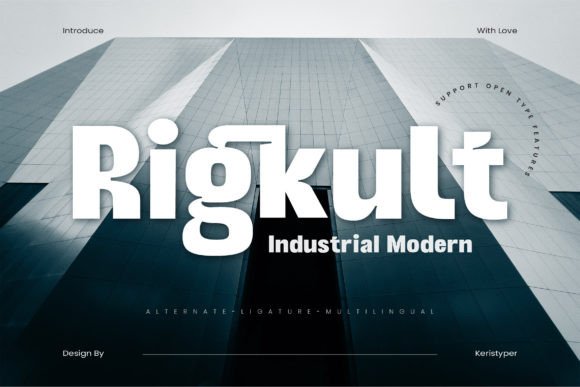
In a digital landscape defined by innovation and disruption, Rigkult font emerges as a beacon of modernity, a font crafted to resonate with the pulse of tech companies. Its sans serif structure radiates a sleek minimalism, a perfect harmony of sharp angles and smooth curves that evoke a sense of progress and evolution. Designed by the visionary Keristyper, Rigkult is not just a font; it's a statement of intent, a declaration of your company's commitment to the future.
Rigkult's strength lies in its versatility, its ability to adapt and excel in diverse contexts. Whether you're crafting a cutting-edge website, designing a sleek mobile app, or creating captivating marketing materials, Rigkult seamlessly blends with your vision, amplifying your message with its inherent power. Its clean lines and crisp edges lend an air of sophistication and professionalism, while its subtle futuristic undertones hint at the boundless possibilities of the digital realm.
With Rigkult as your font of choice, your tech company's identity takes on a new dimension, a visual representation of your innovative spirit. It's a font that speaks to the forward-thinking nature of your business, attracting tech-savvy customers who appreciate the intersection of design and technology. Rigkult elevates your brand, making it instantly recognizable in a crowded digital marketplace.
Investing in Rigkult is an investment in your company's future, a font that will accompany you on your journey to the forefront of innovation. Its timeless design ensures its relevance for years to come, a font that will continue to captivate and inspire as technology evolves. Embrace Rigkult, and watch as your tech company soars to new heights, leaving an indelible mark in the ever-changing digital landscape.